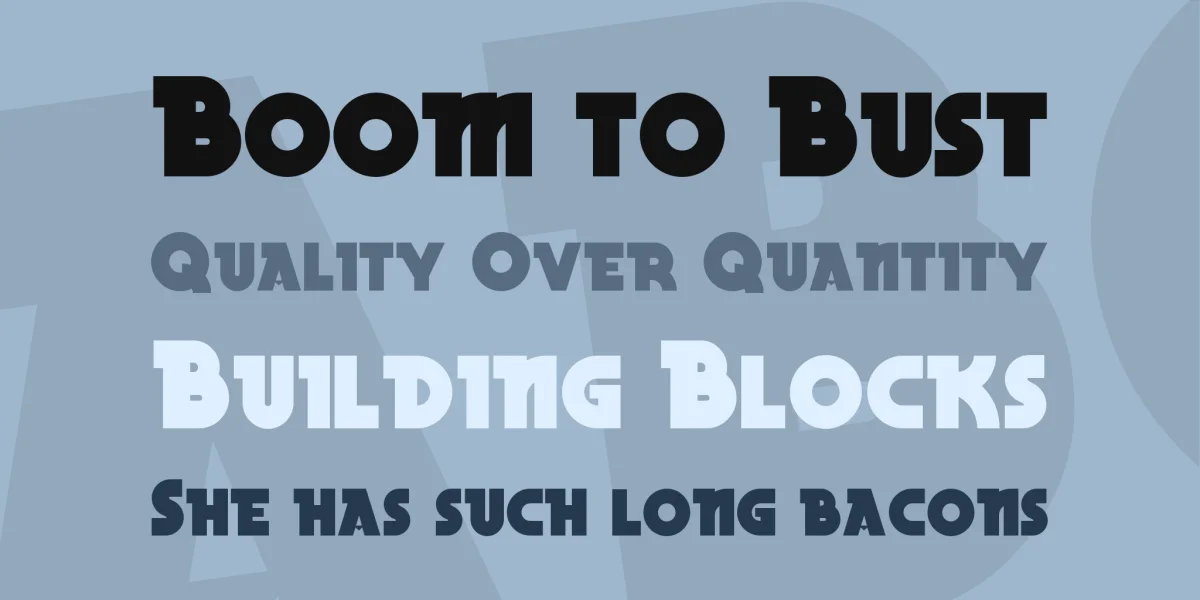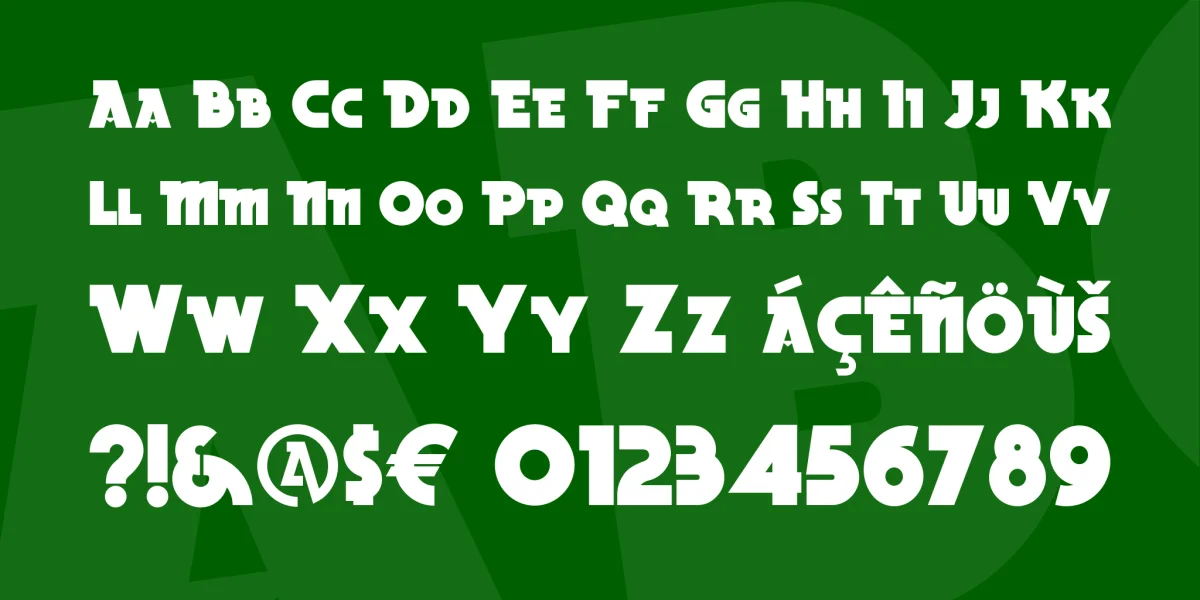
Another offering from the fertile imagination of lettering artist Alf Becker, whose work appeared regularly in Signs of the Times magazine from 1939 to 1954.